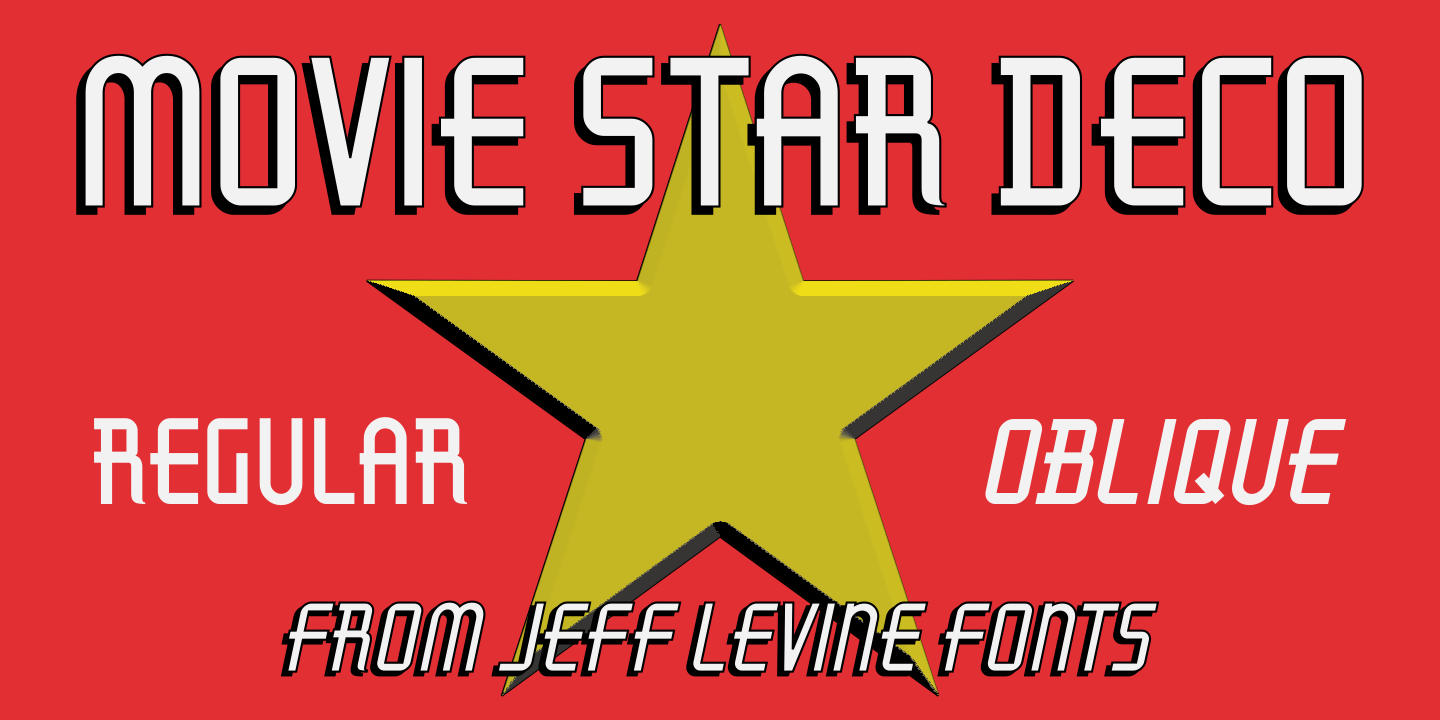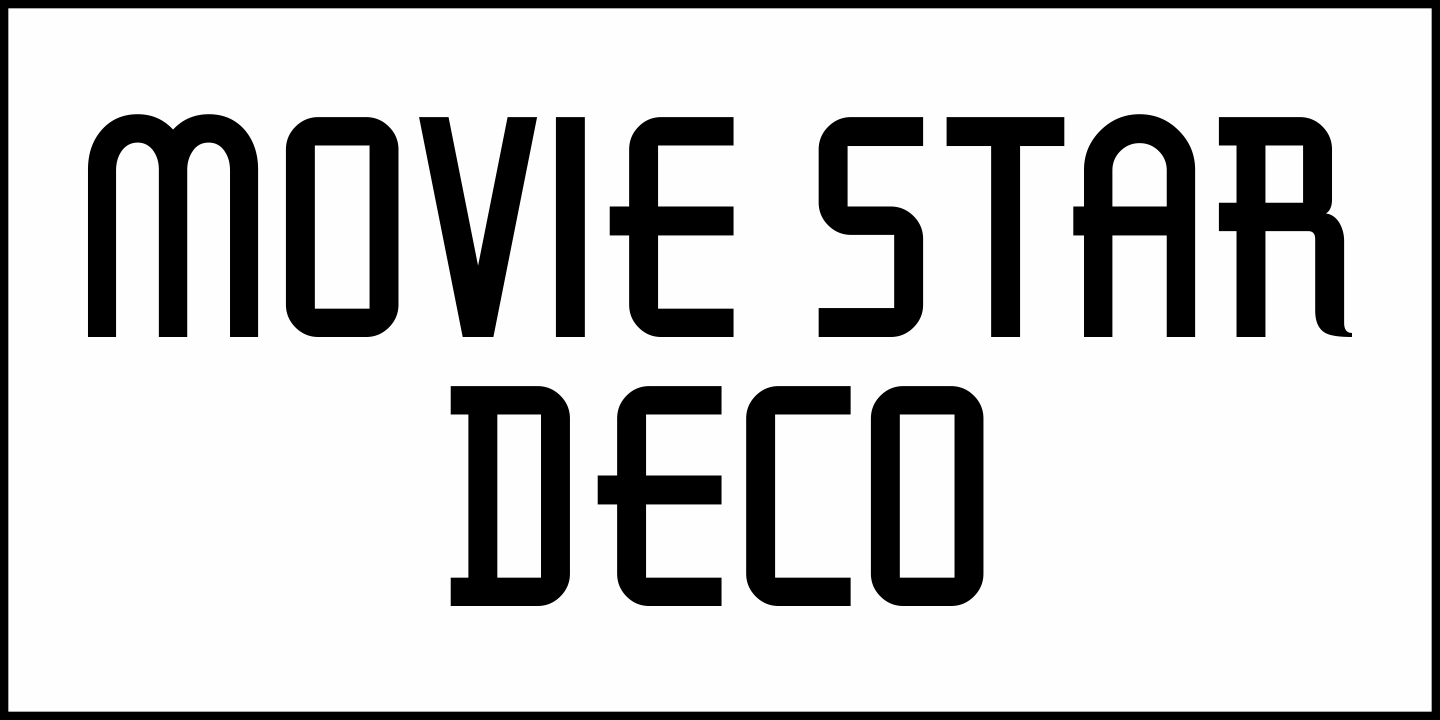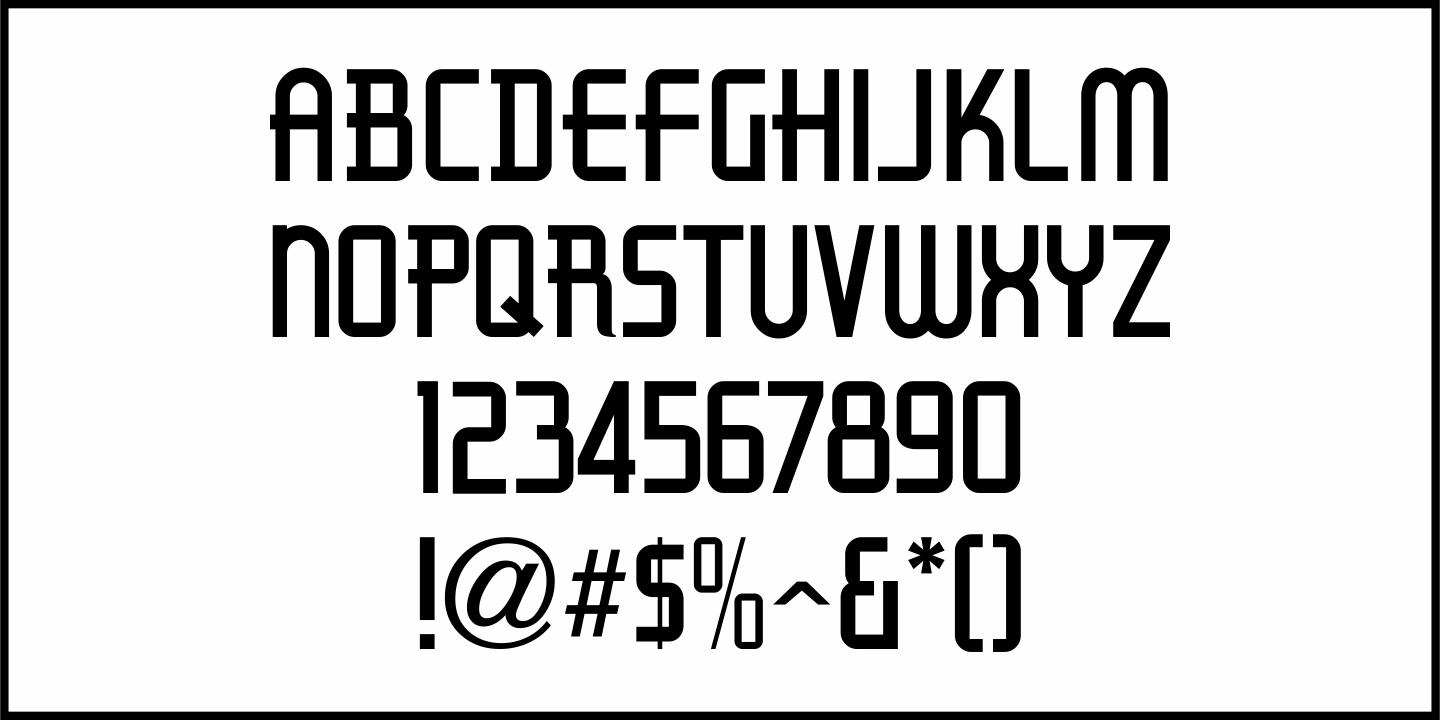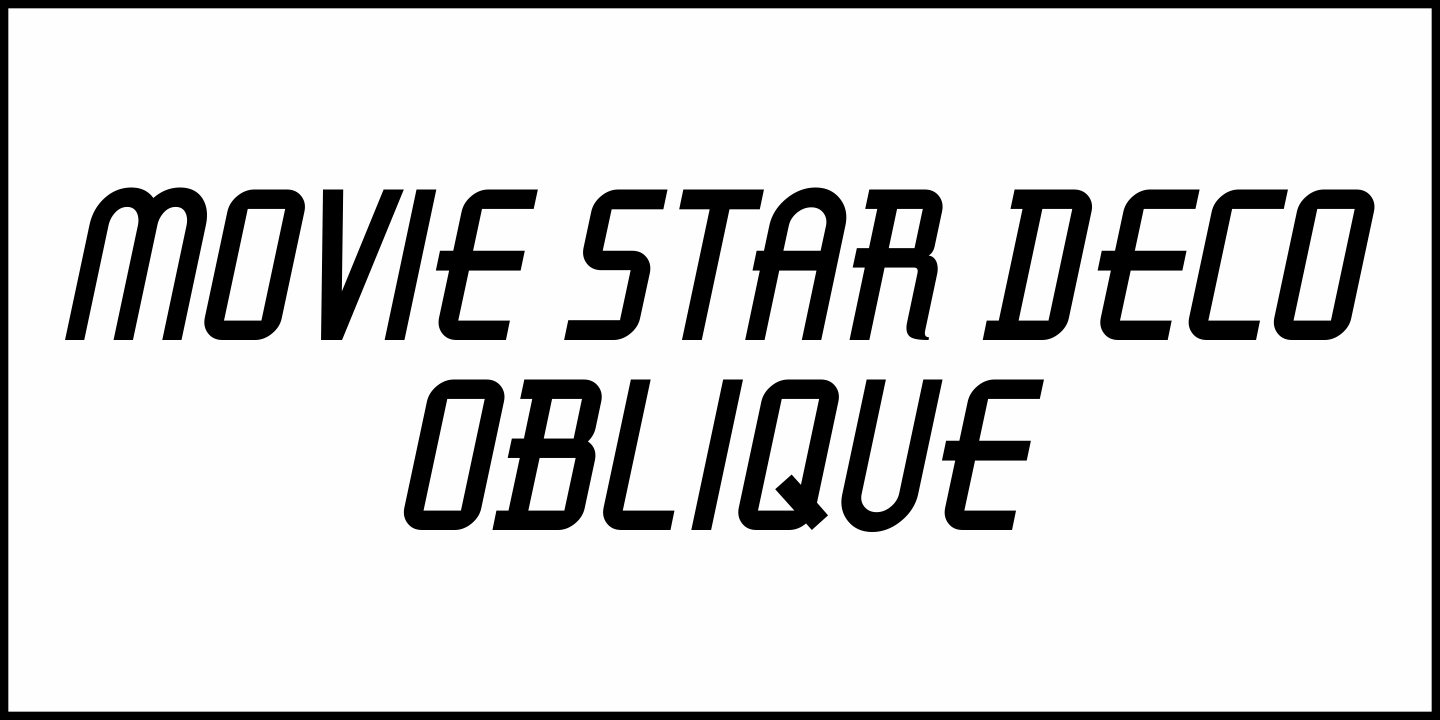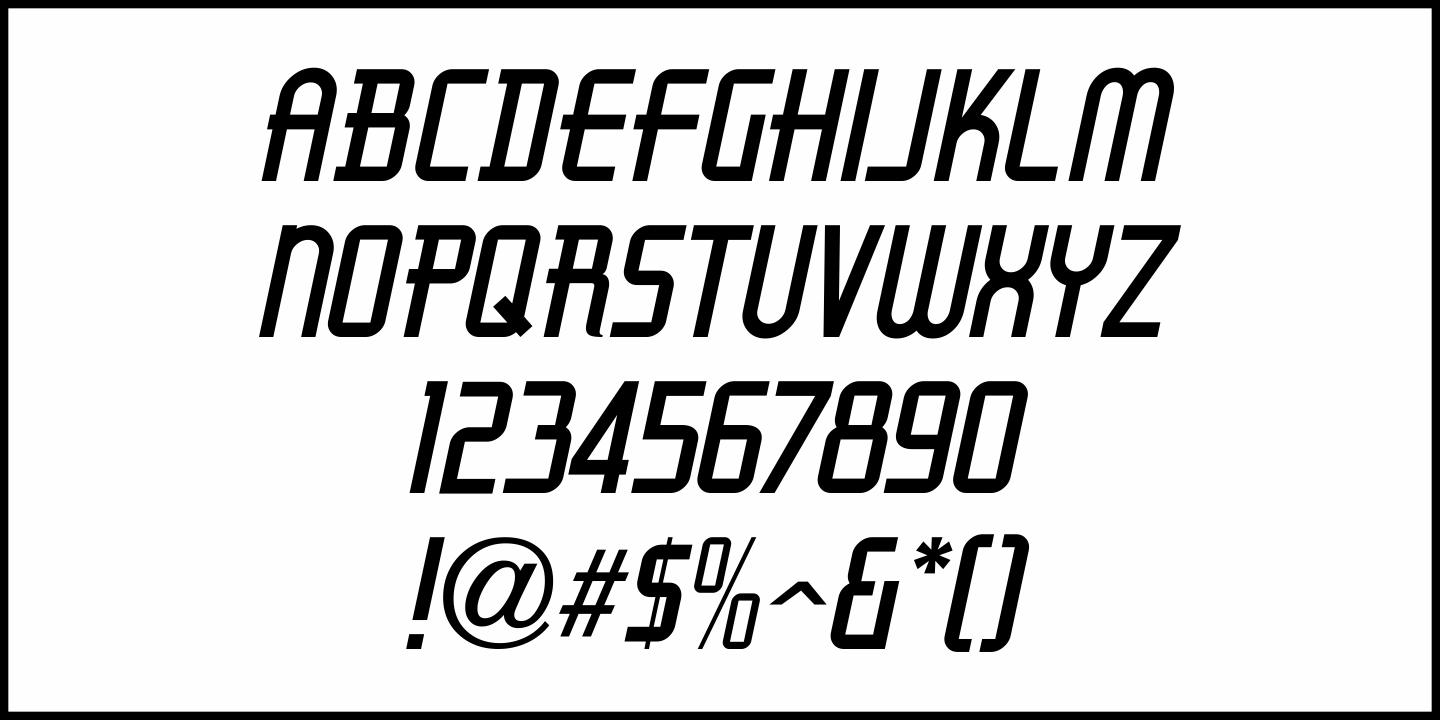
Movie Star Deco
Here's a jaunty little Art Deco sans serif type design inspired by the headline of a feature article on Carole Lombard found in the August, 1937 issue of Hollywood magazine.
This served as the inspirational model for Movie Star Deco JNL, and is available in both regular and oblique versions.